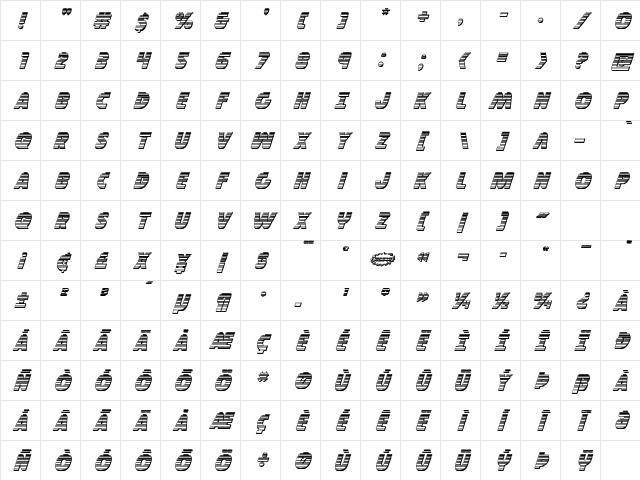
Governor Chrome Italic Italic
Design Context for Governor Chrome Italic
Governor Chrome Italic is a composed and adaptable typeface that performs quietly and consistently across a wide range of design contexts. The slanted form adds forward momentum and visual energy.